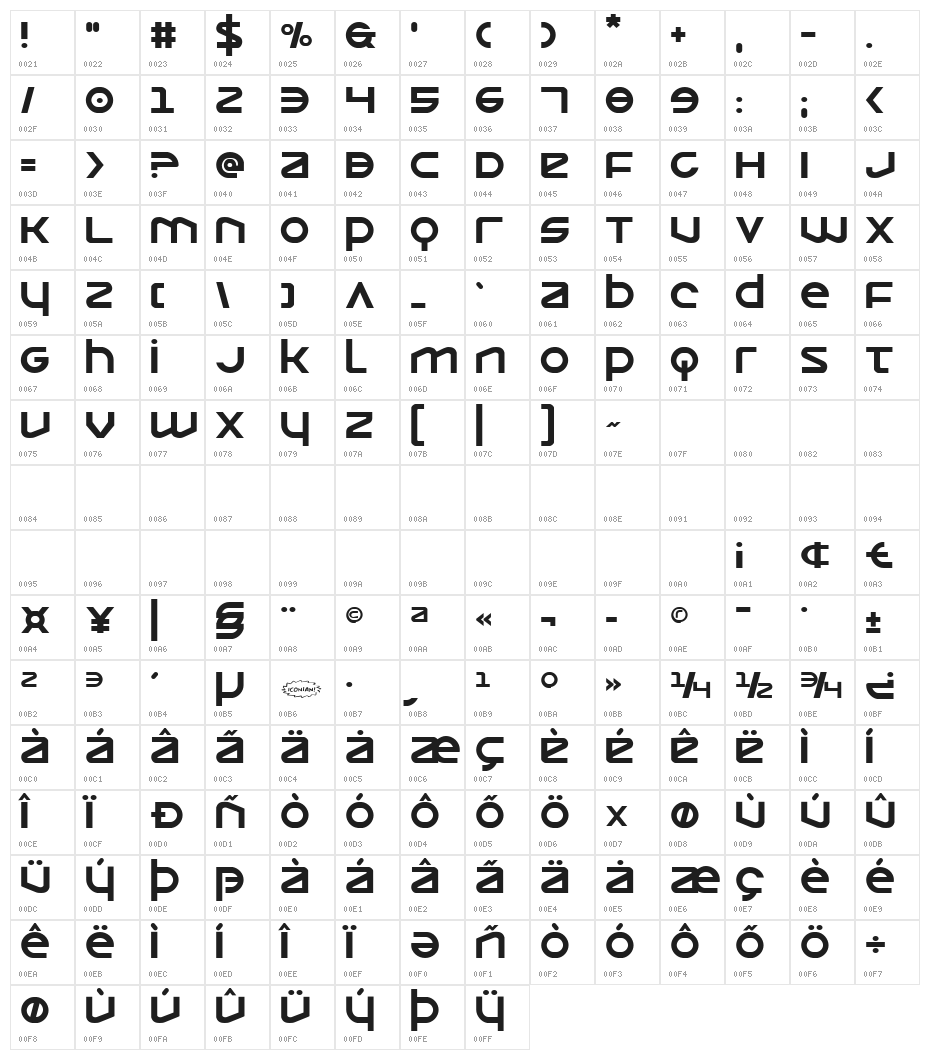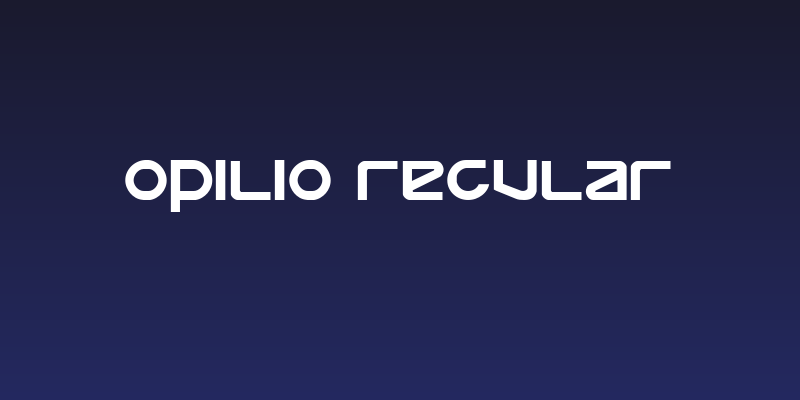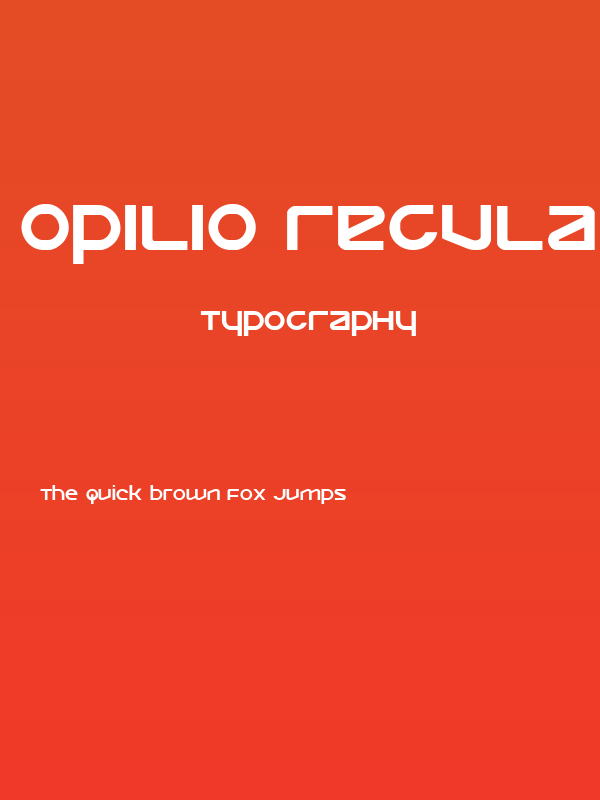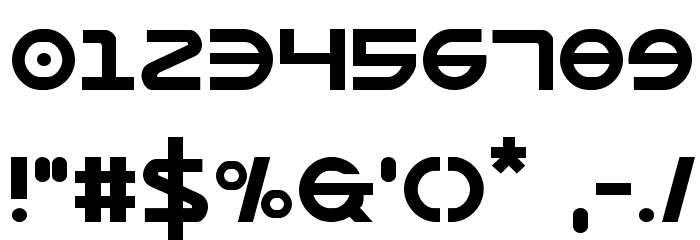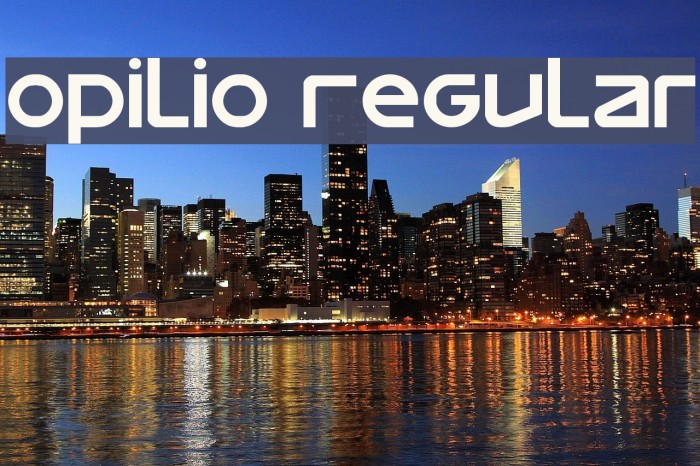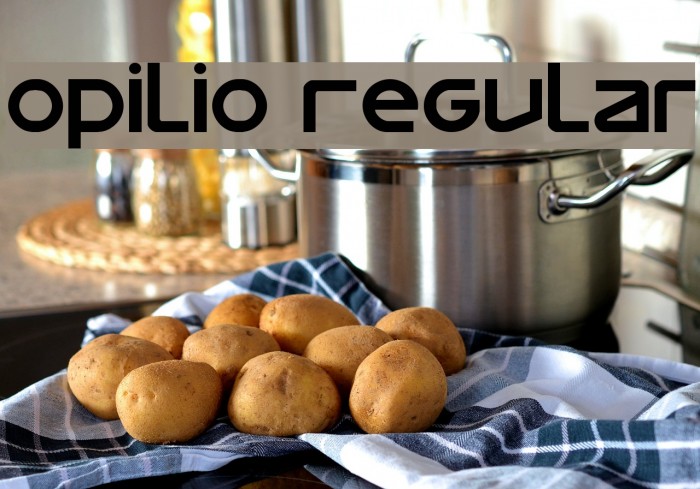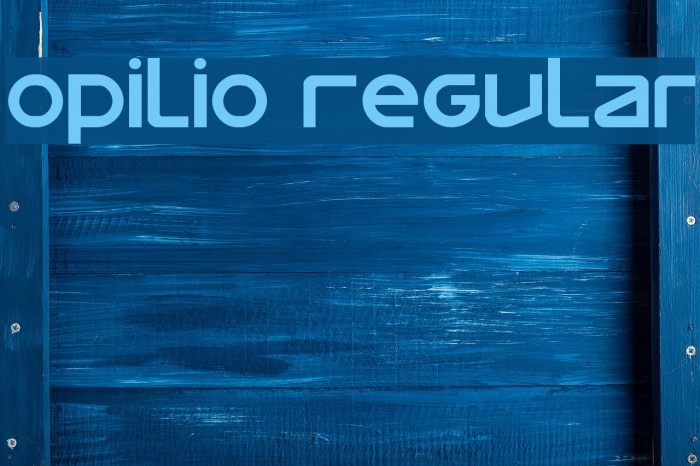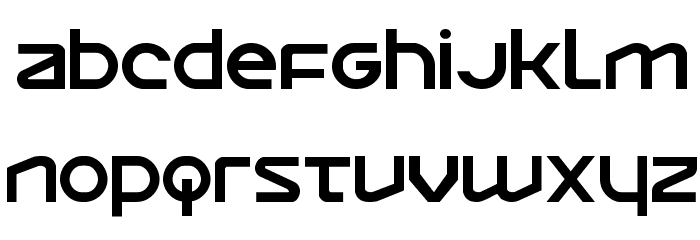
Opilio Regular Font
Opilio Regular Description
This font features a geometric and modern design with a unique blend of angular and rounded elements. The uppercase and lowercase letters maintain a consistent style, characterized by clean lines and a futuristic appearance. The numerals are distinct and easy to read, with a uniform width that complements the overall design. Special characters are crafted with the same attention to detail, ensuring a cohesive look across all glyphs. The font's structure is bold and impactful, making it suitable for various design applications where a contemporary and striking aesthetic is desired.
| Use Case | Headlines, Logos, Digital interfaces |
| Proposed Projects | Ideal for technology branding, modern advertising, futuristic posters, and digital interfaces. |